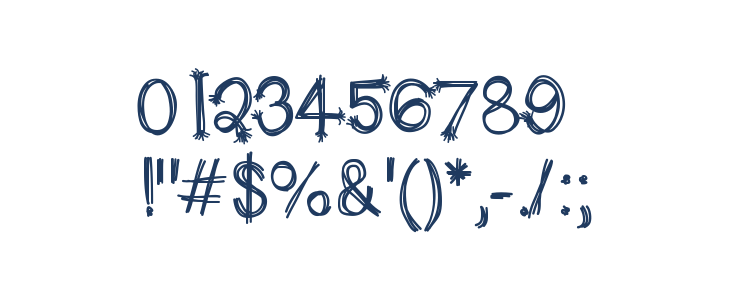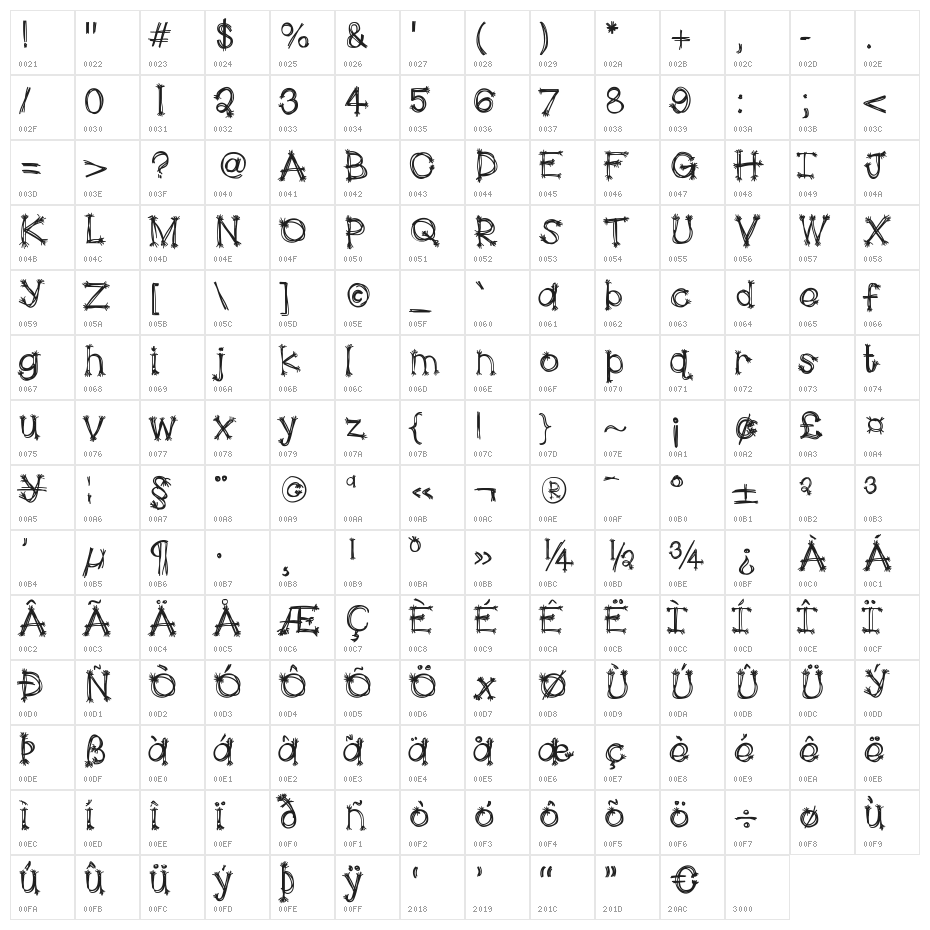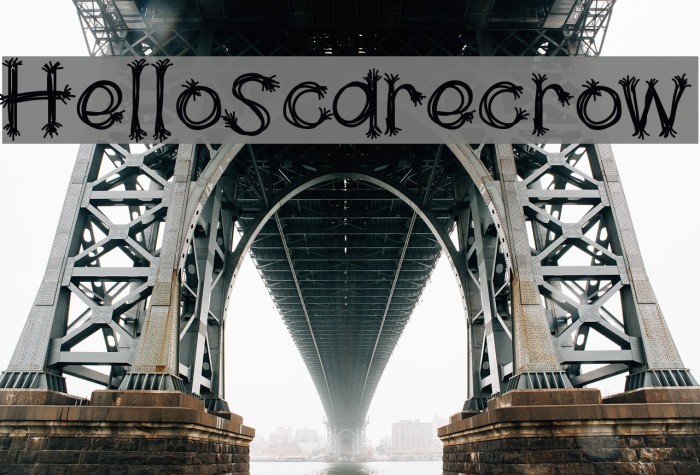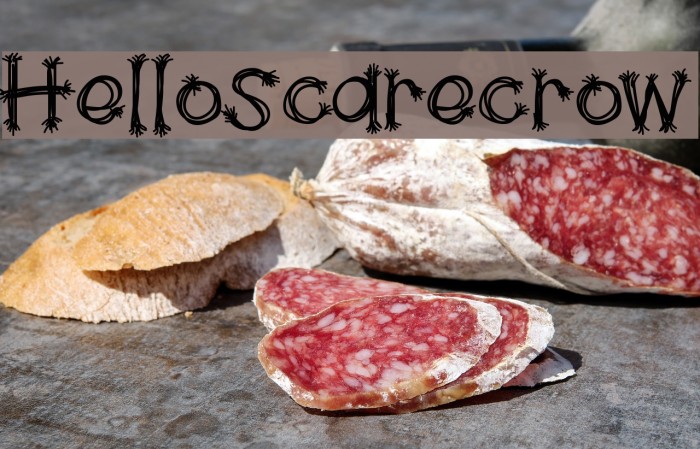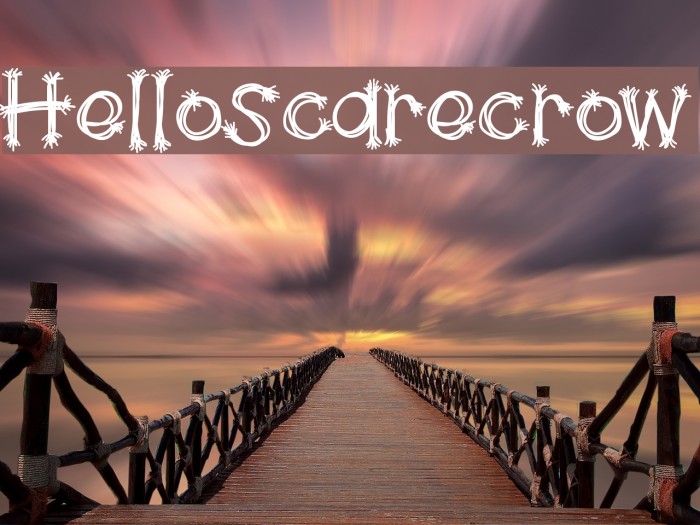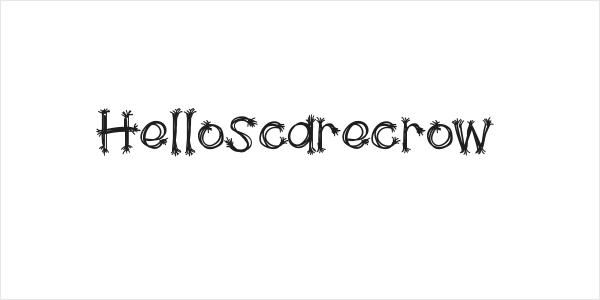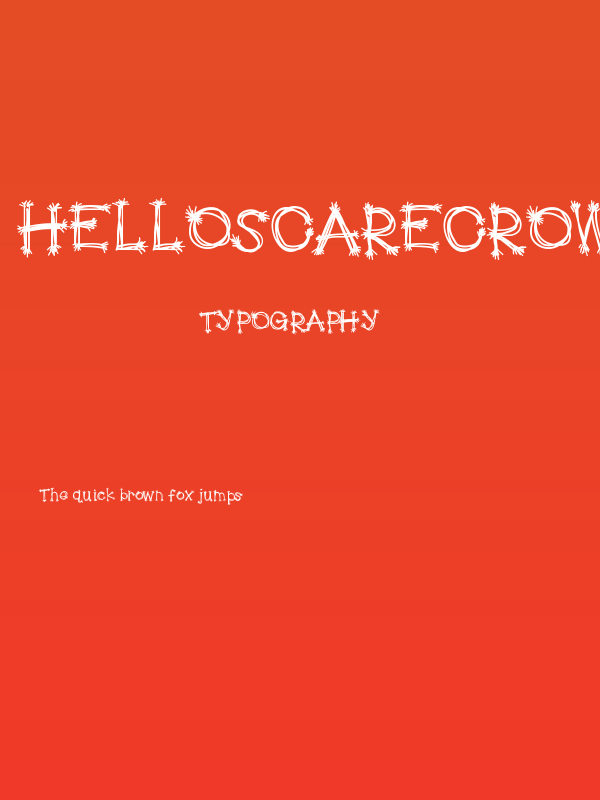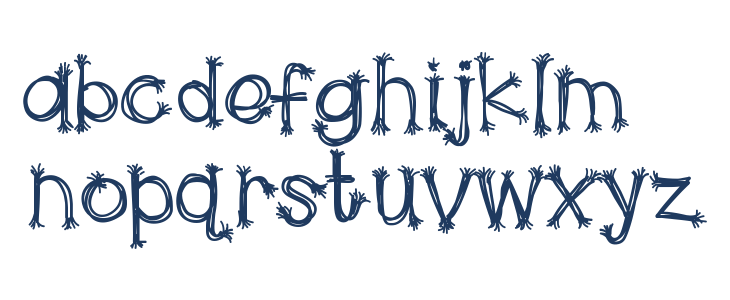
HelloScarecrow Font
HelloScarecrow Description
This font features a whimsical and playful design, reminiscent of scarecrows and autumn themes. Each character is crafted with a unique, hand-drawn style that incorporates elements resembling straw or twigs, giving it a rustic and organic feel. The strokes are uneven and textured, adding to the font's charm and character. It is highly decorative, making it ideal for themed projects that require a touch of creativity and imagination. The font maintains legibility despite its intricate design, with clear distinctions between each letter and number.
Use CaseHeadlines, Posters, Invitations
Proposed ProjectsPerfect for Halloween invitations, autumn festival posters, children's book covers, and themed party decorations.